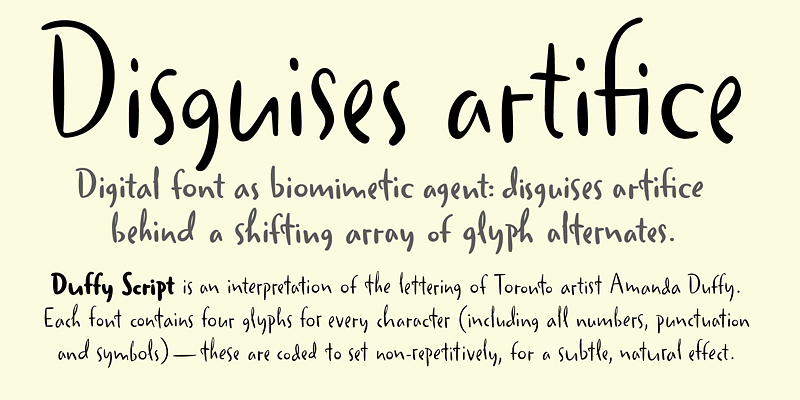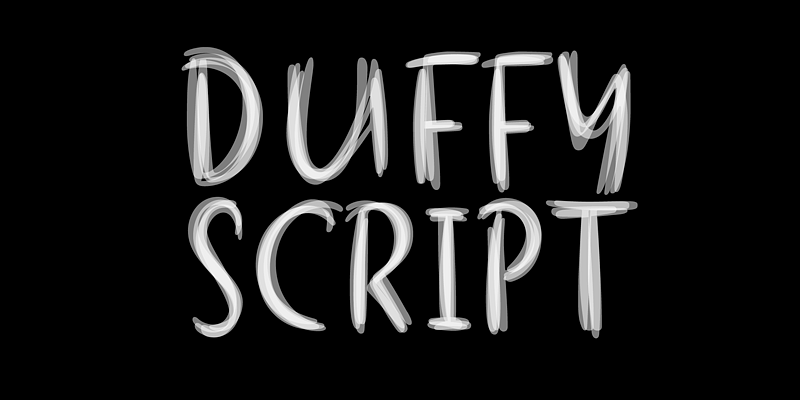
An interpretation of the lettering of contemporary Toronto illustrator Amanda Duffy. Each weight contains four glyphs for every character (including all numbers, punctuation and symbols). These are coded to set in a non-repetitive order, for a subtle, pleasantly natural effect—and this is generally what is meant by “pseudo-random” in OpenType fonts. The variant glyphs for each character are not radically different, but consistent in the way that letters from Duffy’s hand exhibit slight modulations from a distinctive pattern. While casual script fonts without a pseudo-random feature may be used to signify certain values, fonts with it go a step further in analogue simulation, reproducing the experience of reading hand lettering.